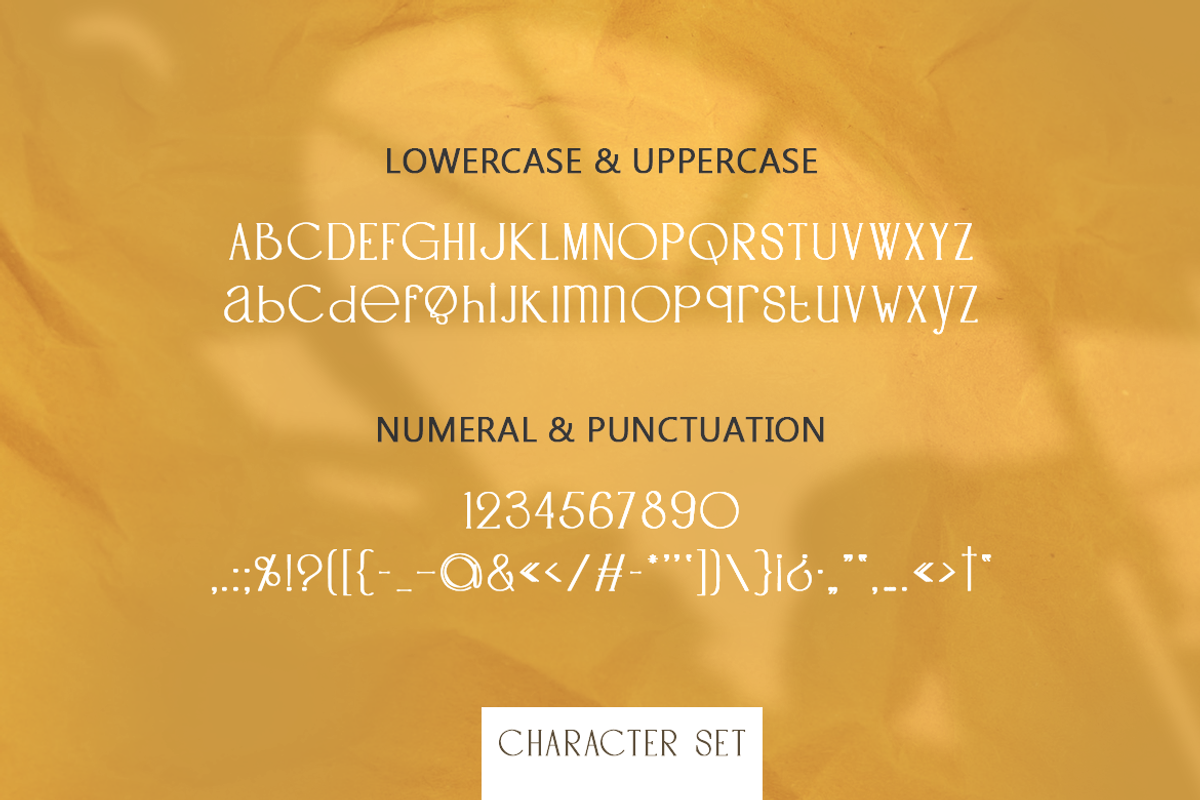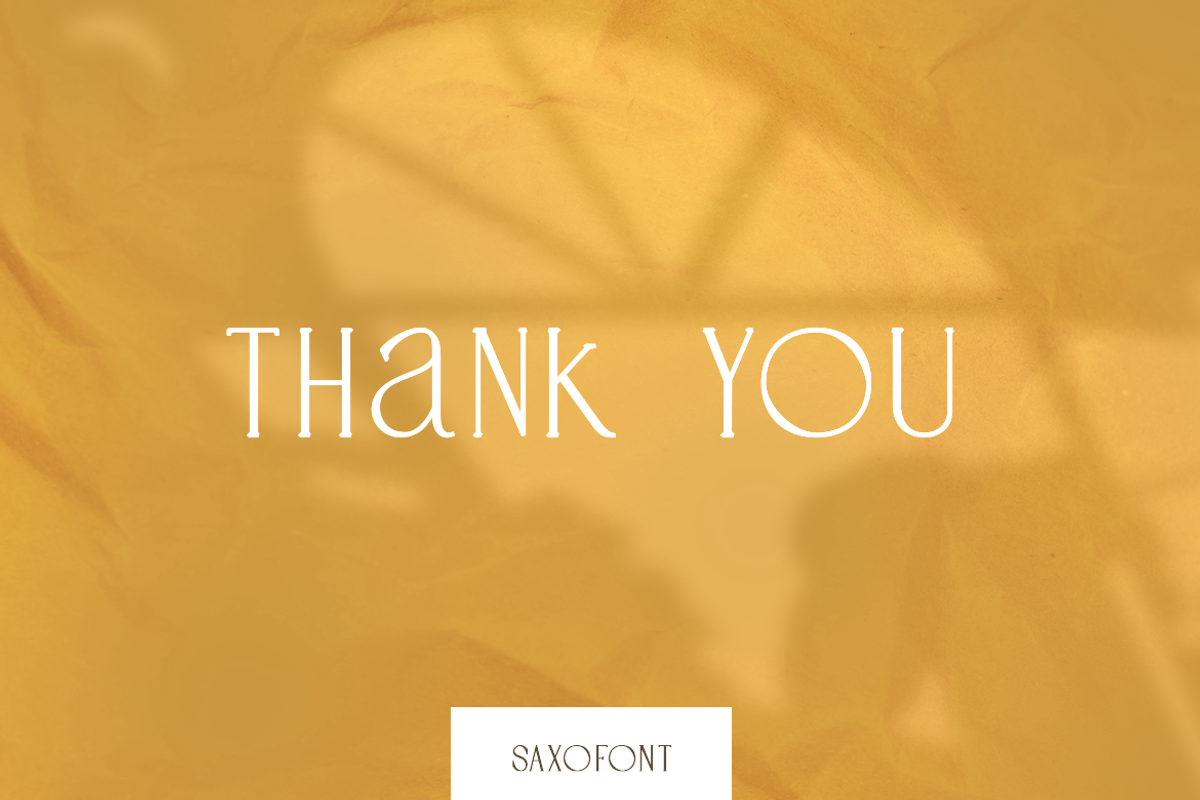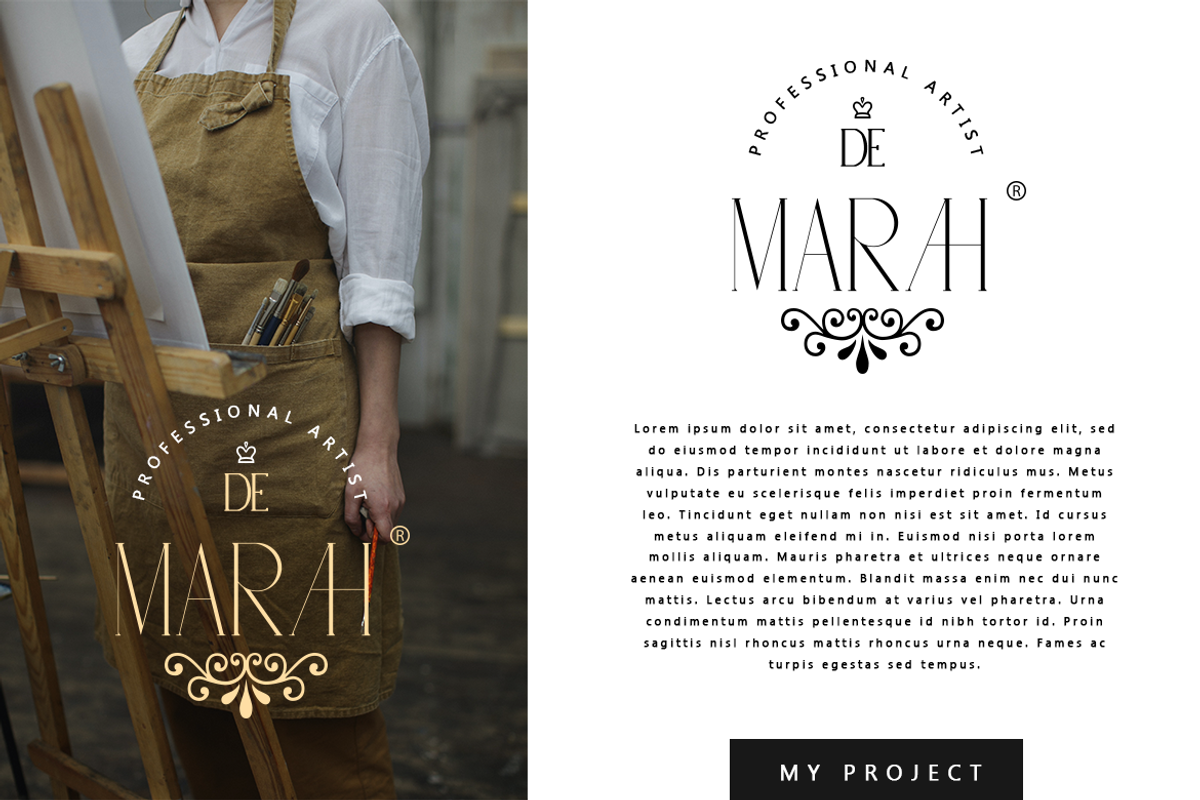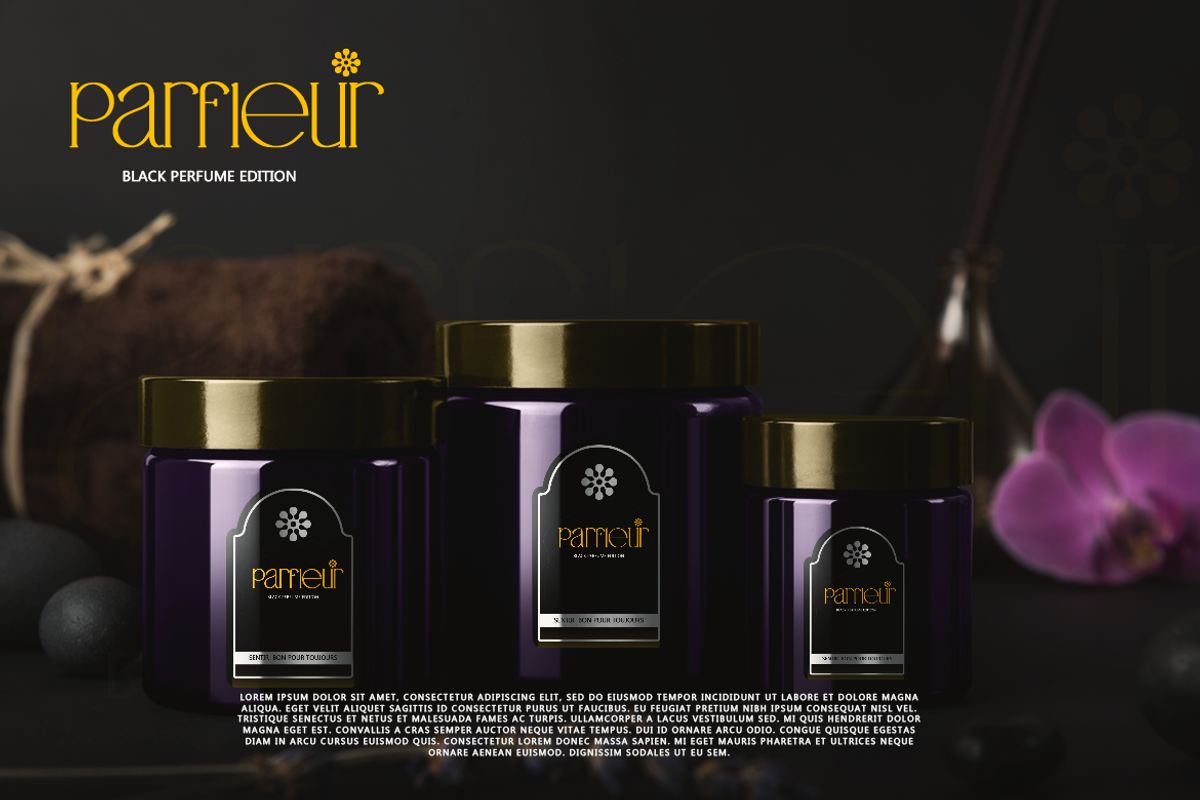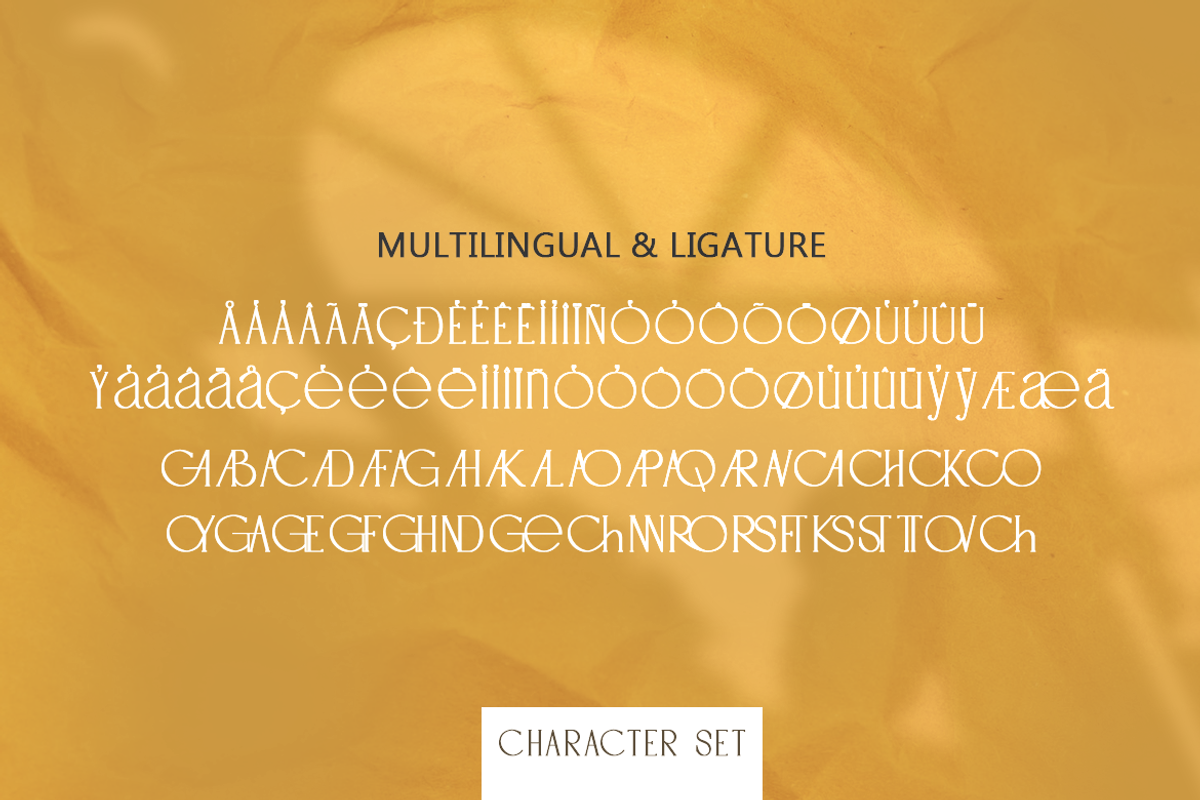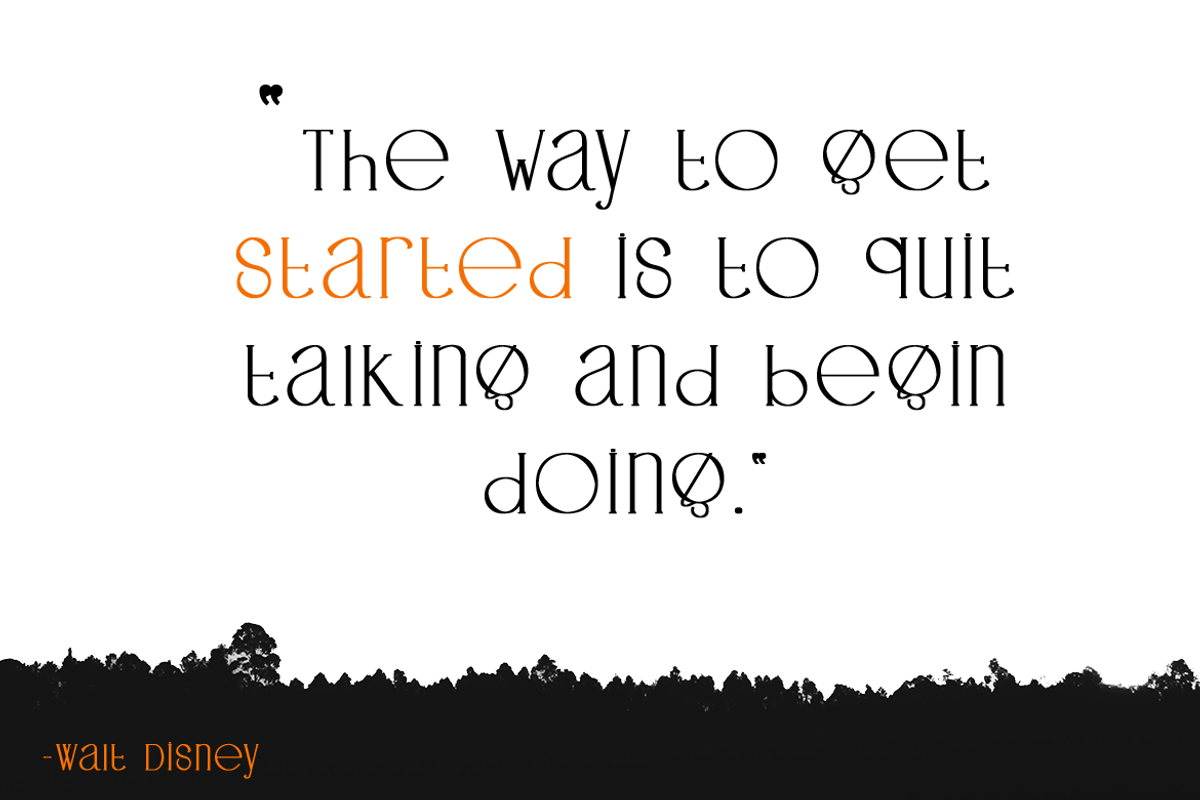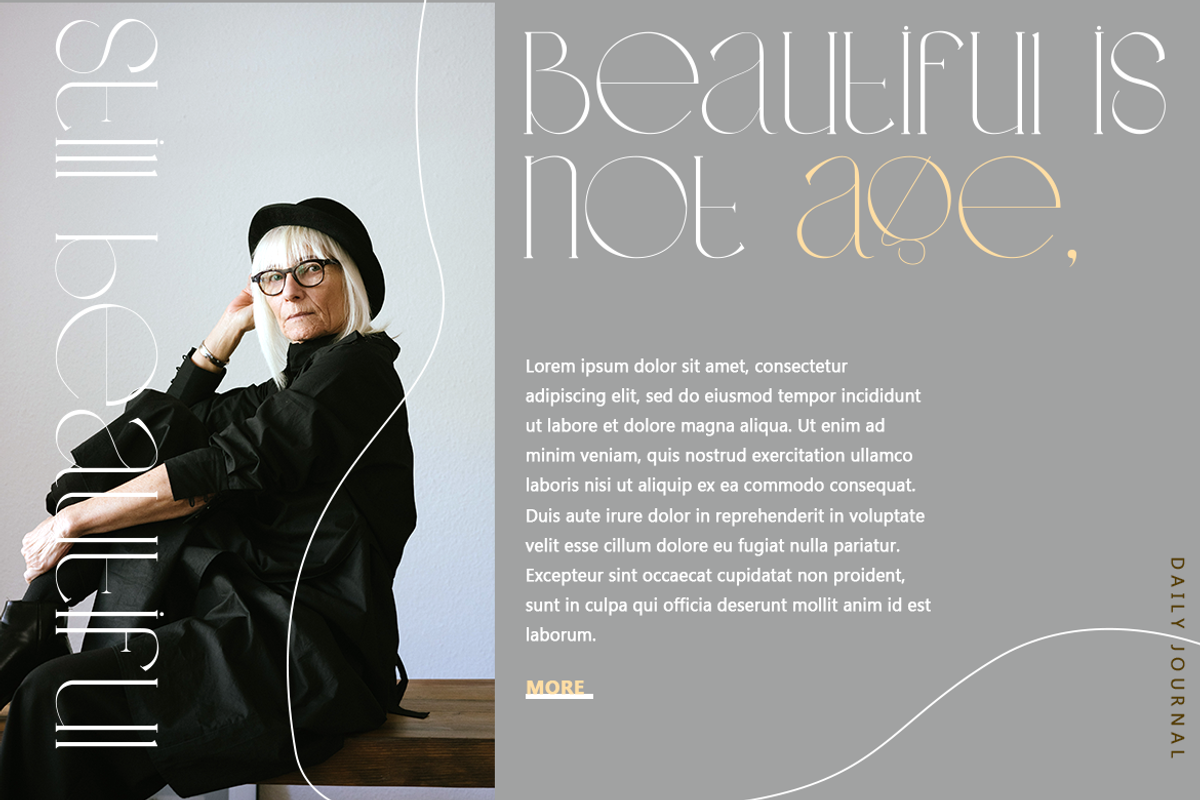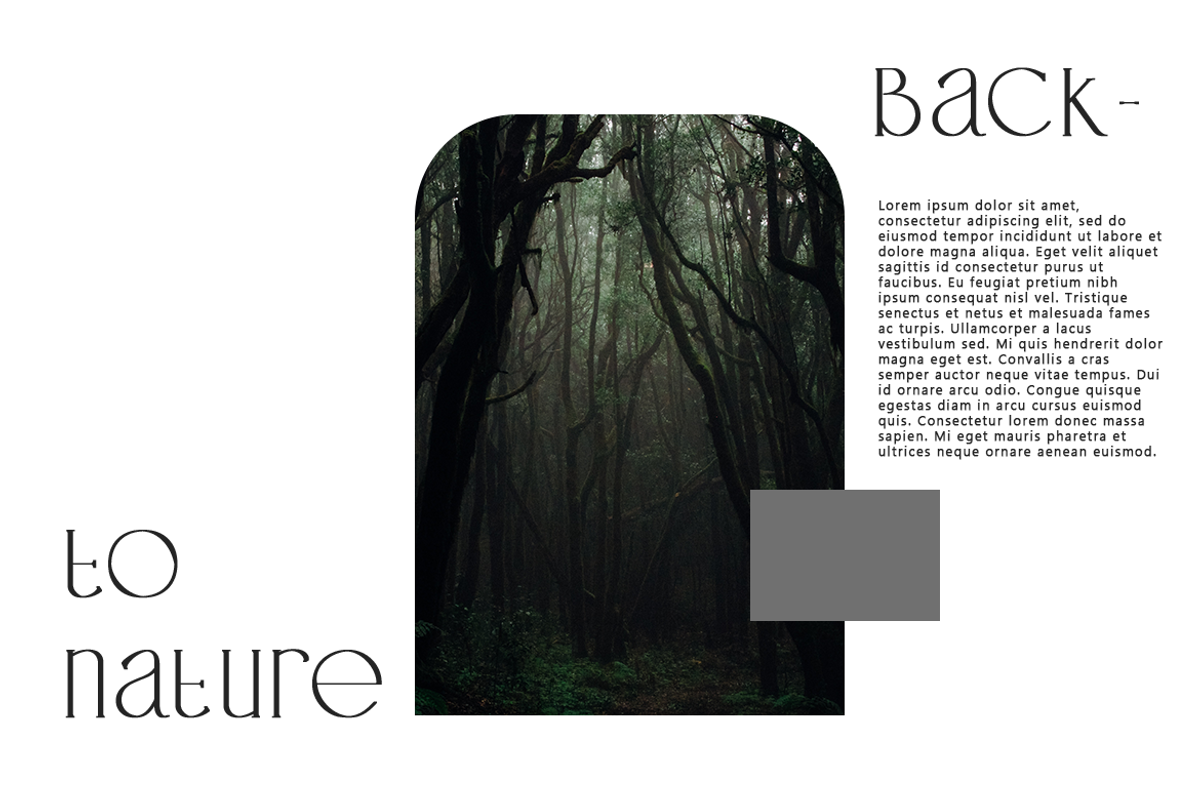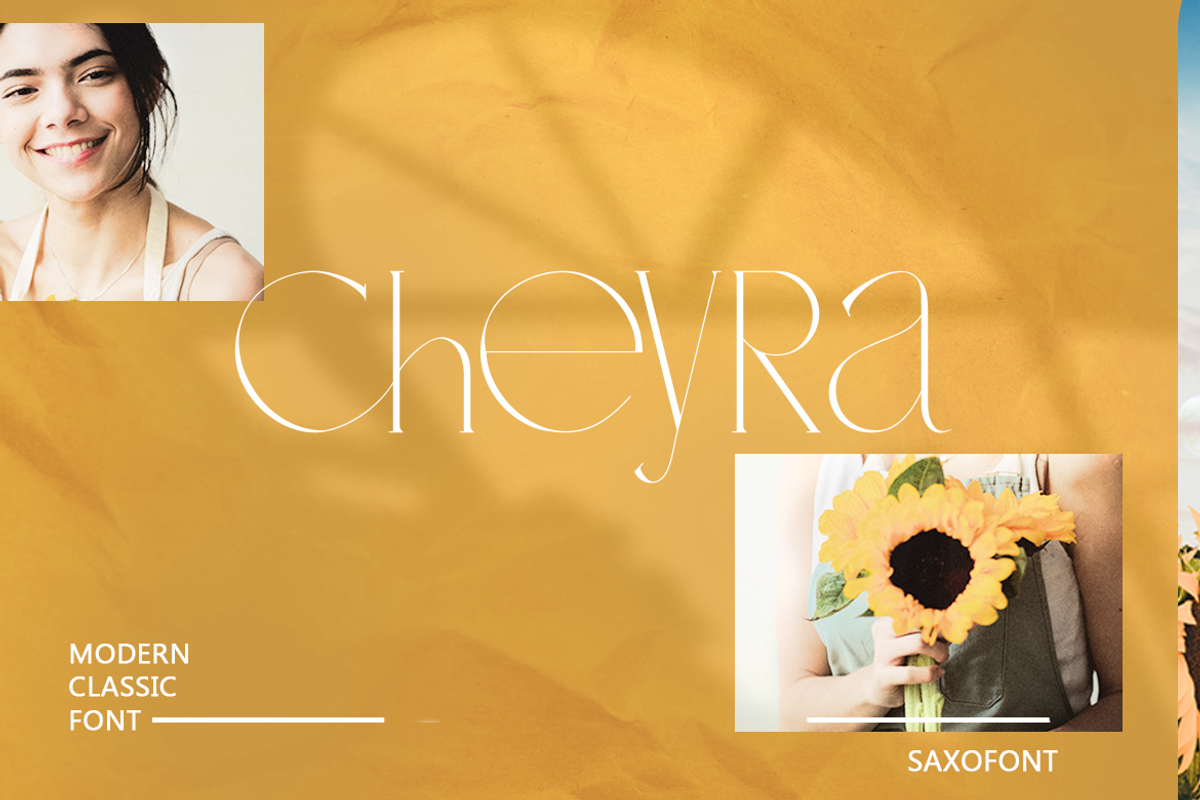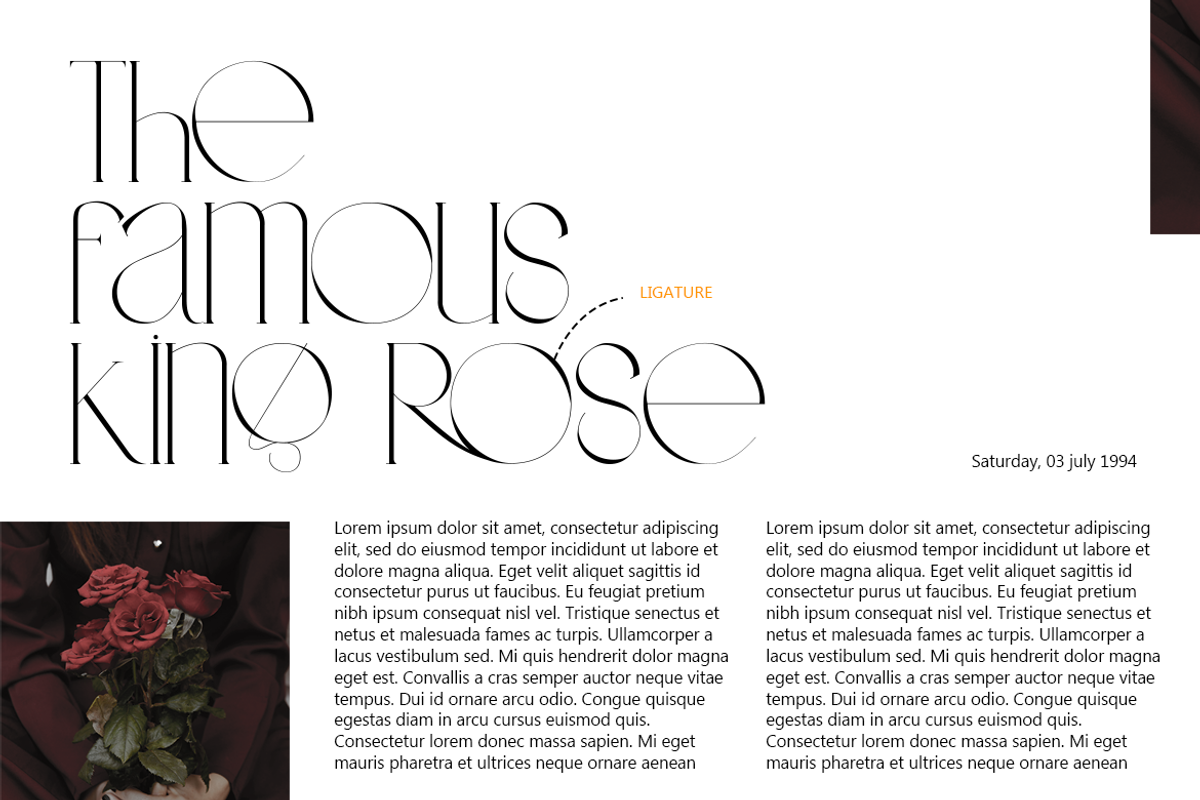
Cheyra - Modern Classic Font
Cheyra is a thin and modern sans serif font. Use it for any design projects that require a charming appearance! This font is PUA encoded which means you can access all of the glyphs and swashes with ease!